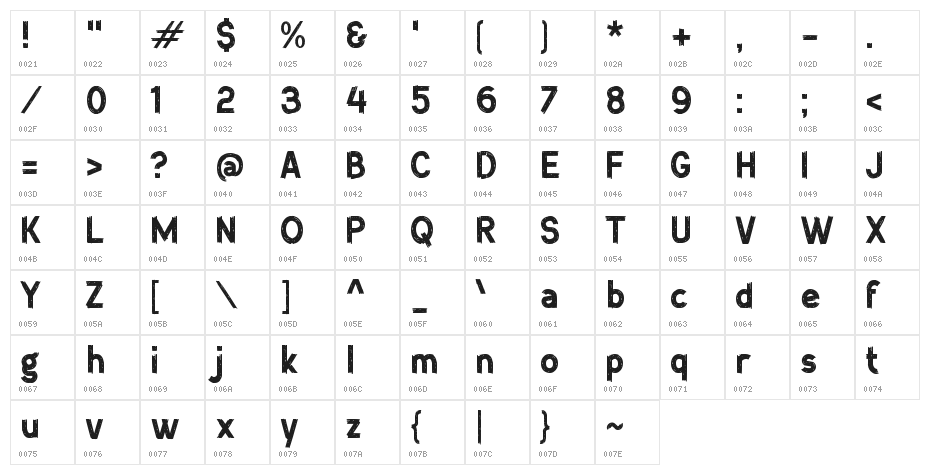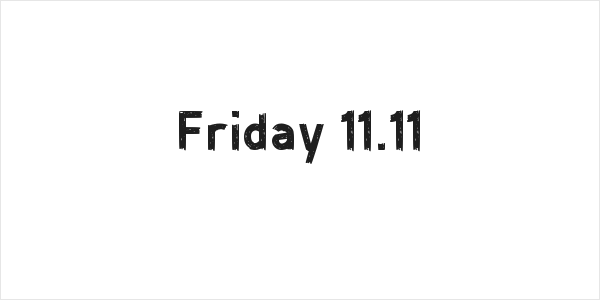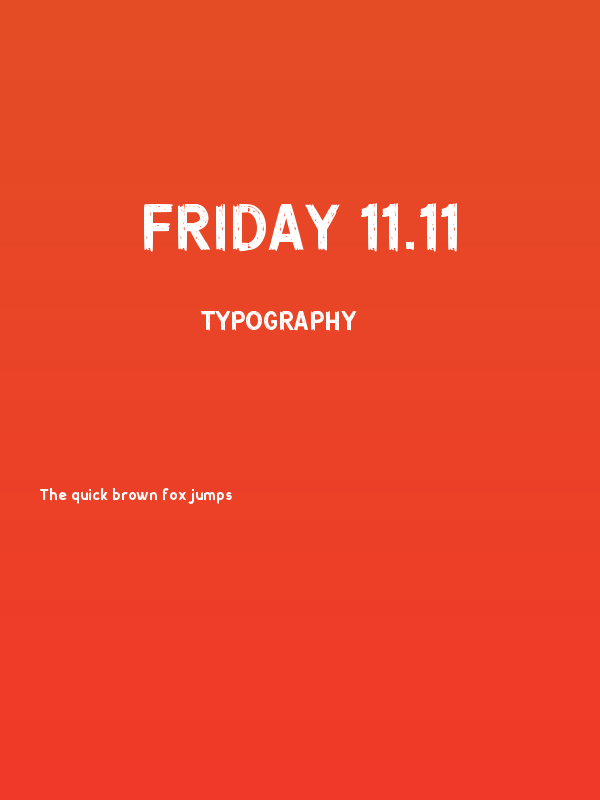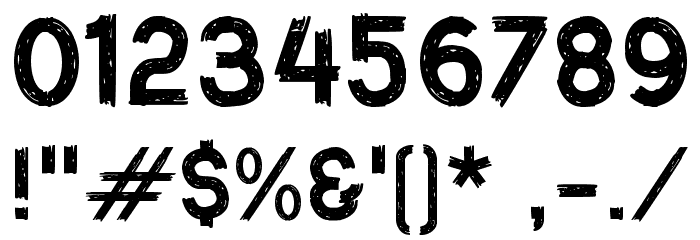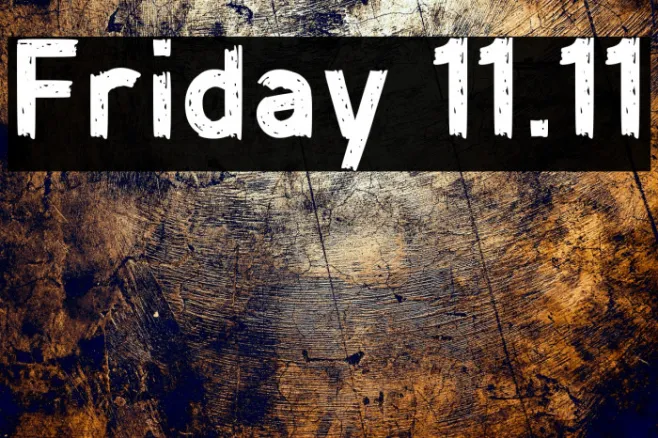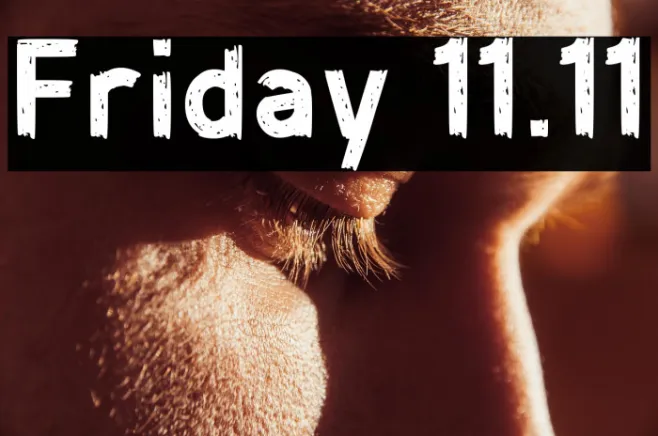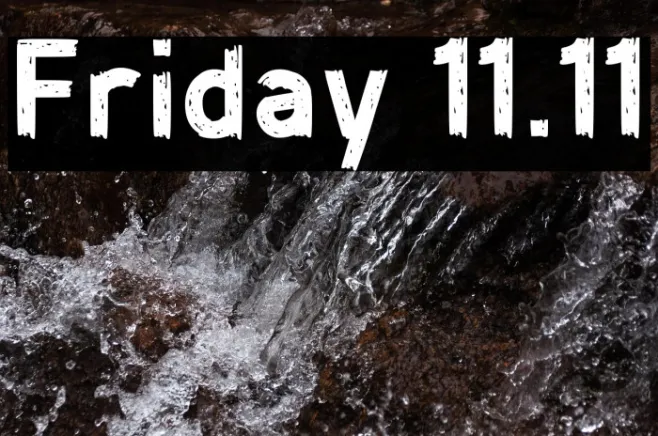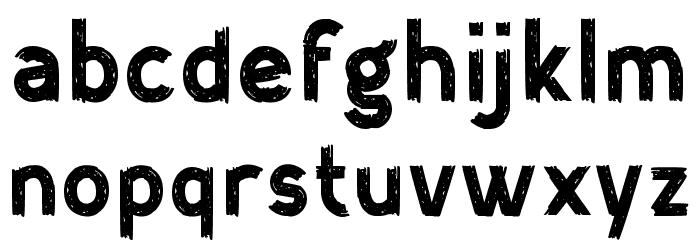
Friday 11.11 Font
Friday 11.11 Description
This font features a bold, distressed style with a textured appearance that gives it a rugged and vintage feel. The characters are uniformly bold, with a slightly rough and worn-out look, making it ideal for projects that require a rustic or handcrafted aesthetic. The uppercase and lowercase letters maintain a consistent style, with rounded edges and a slightly condensed form. Numbers and special characters follow the same design, ensuring a cohesive look across all text. The font's unique texture adds character and depth, making it stand out in various design applications.
| Width | Condensed |
| Overall Style | Vintage |
| Proposed Projects | Ideal for branding, posters, and packaging that require a rustic or handcrafted look. |